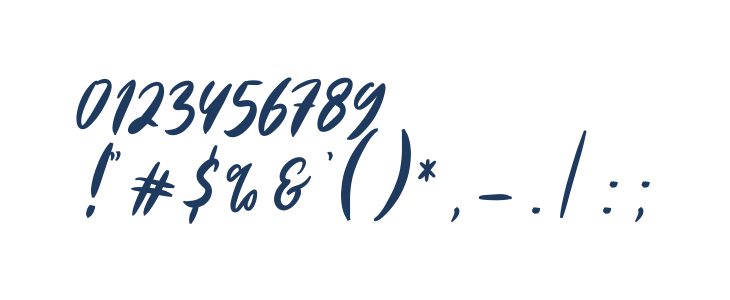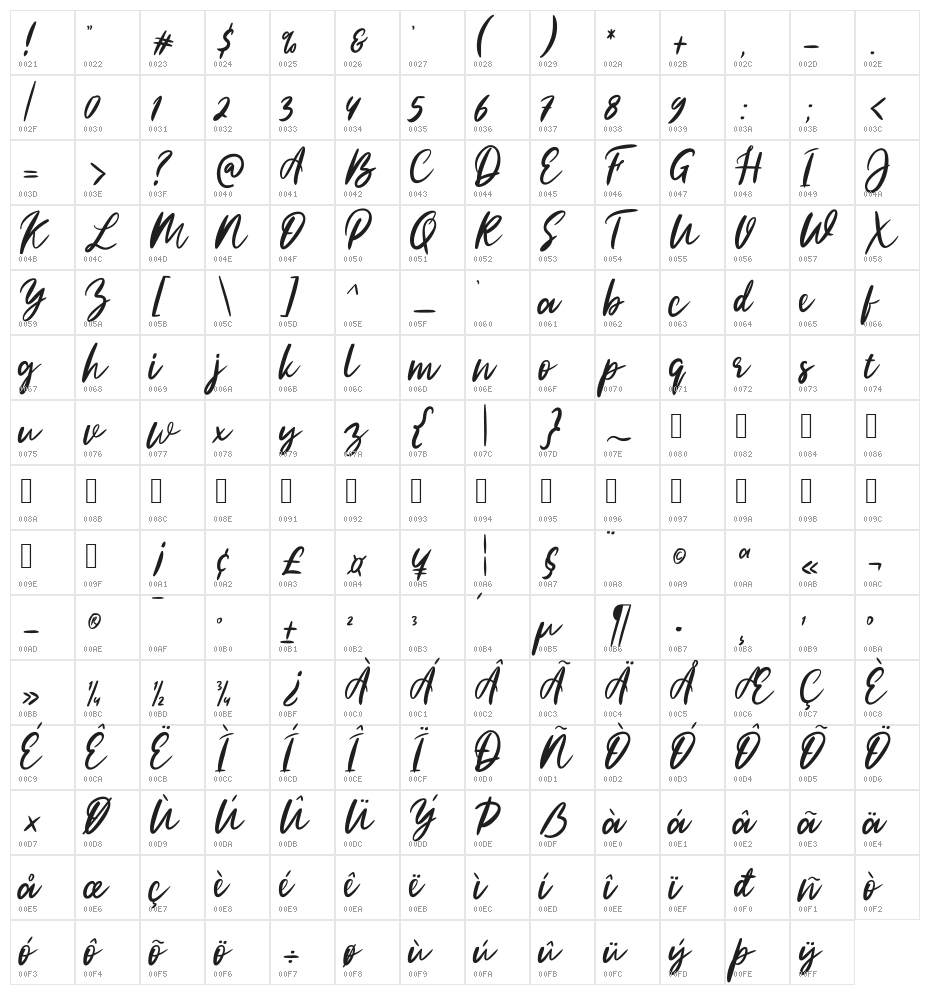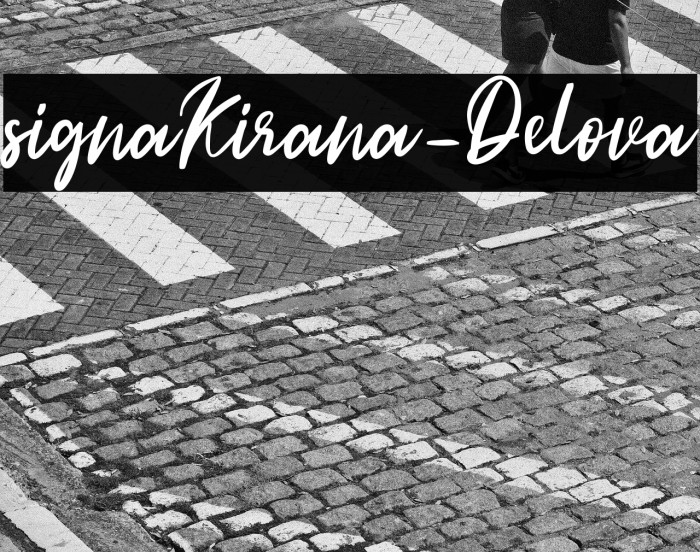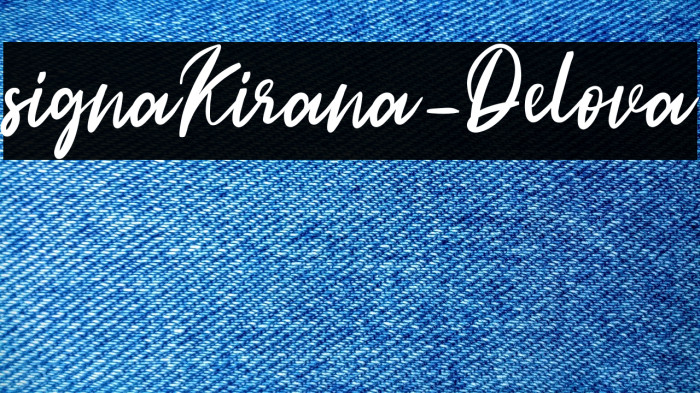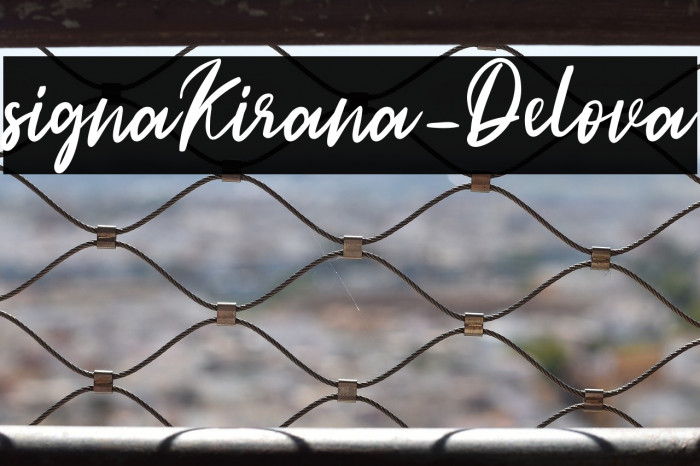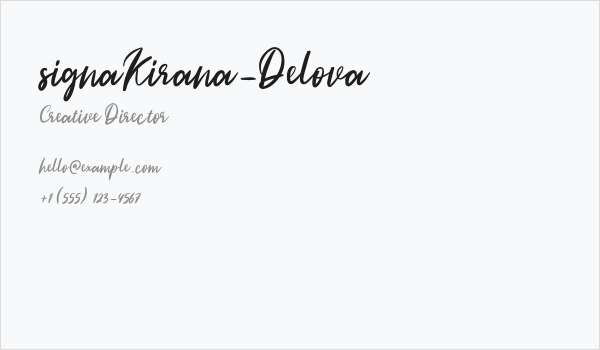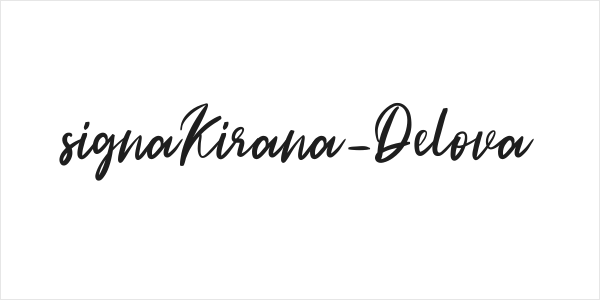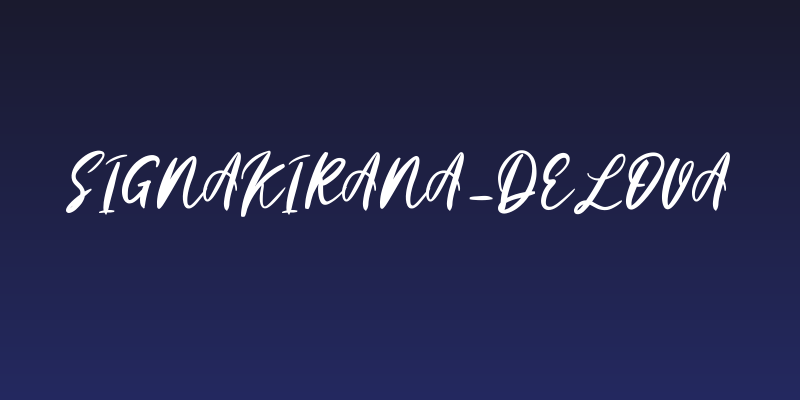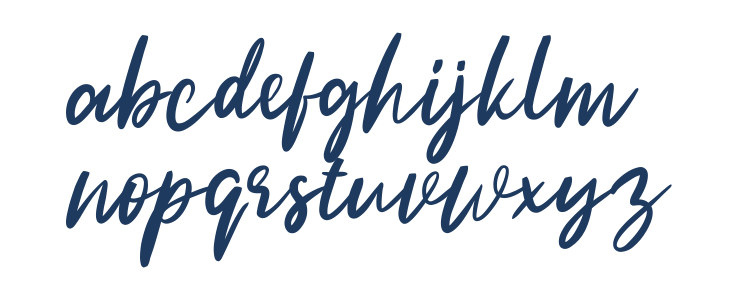
signaKirana-Delova Font
signaKirana-Delova Description
This font features a dynamic and expressive script style, characterized by its fluid, cursive strokes and elegant flow. The uppercase letters are bold and slightly slanted, giving a sense of movement and energy. The lowercase letters maintain a consistent rhythm, with smooth connections between each character, enhancing readability while preserving the artistic flair. Numbers and special characters are crafted to match the overall aesthetic, ensuring a cohesive look across all text. This font exudes a modern yet classic charm, making it versatile for various design applications.